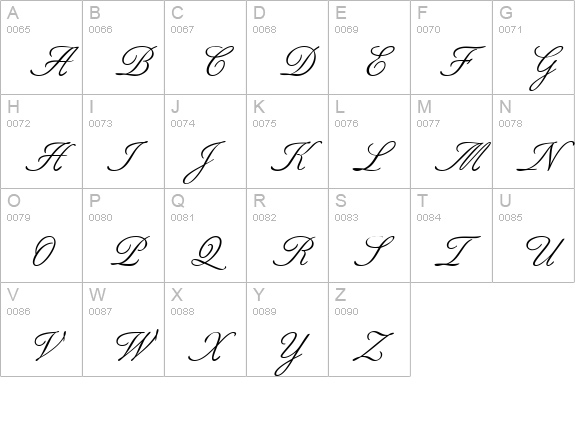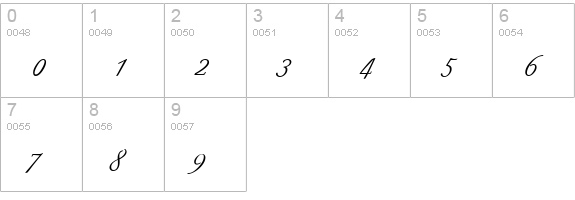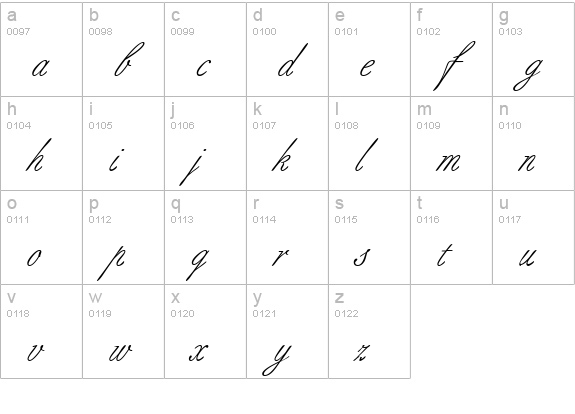
BestDB Normal Font Details
BestDB Normal is the standard, neutral variant in the BestDB typeface family \xE2\x80\x94 well suited to general body text, paragraphs, and standard typographic work.
BestDB Normal font is a versatile and modern typeface that exudes simplicity and elegance. With its clean lines and balanced proportions, this font is perfect for a wide range of design projects, from logos to website headers. The BestDB Normal font is available for free download at FontsMarket.com, making it easily accessible for designers and creatives looking to enhance their work with a high-quality typeface. Its timeless design and readability make it a valuable addition to any design toolkit. Experience the versatility and beauty of BestDB Normal font today by downloading it for free at FontsMarket.com.